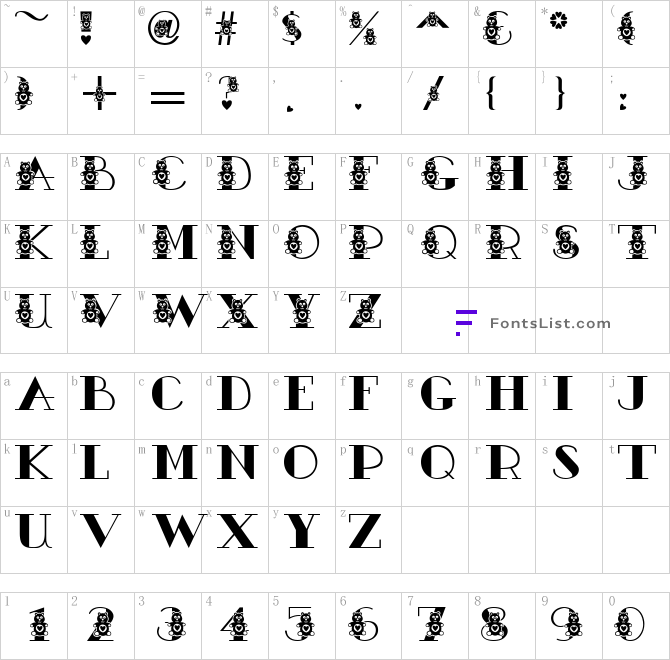
- Font Name:AC2-TeddyBear
- Full Name:AC2 TeddyBear
AC2-TeddyBear.ttf is a very beautiful artistic font, AC2-TeddyBear.ttf is widely used in the design and printing of various books and pictures,AC2-TeddyBear.ttf has a strong visual impact,AC2-TeddyBear.ttf is a commonly used font in newspapers, magazines and books, and is used in posters, e-commerce Poster design, store design, logo design, font design and other fields.AC2-TeddyBear.